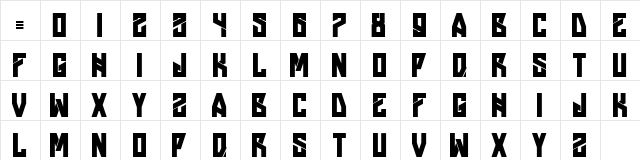
H74 Ocelot Piss Regular
| Designer | Joshua Smith |
Design Context for H74 Ocelot Piss Typeface
H74 Ocelot Piss is a composed and adaptable typeface that performs quietly and consistently across a wide range of design contexts.